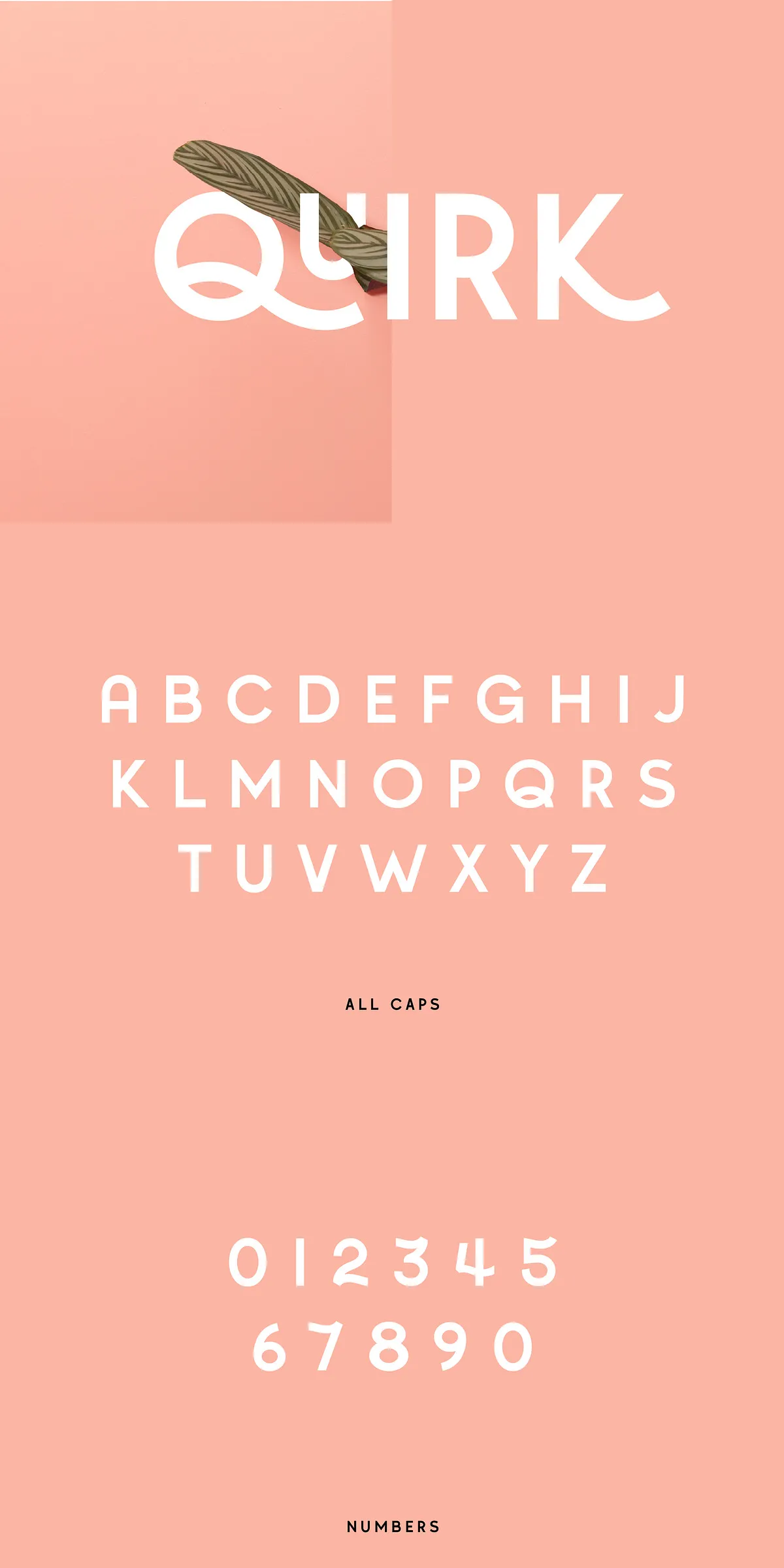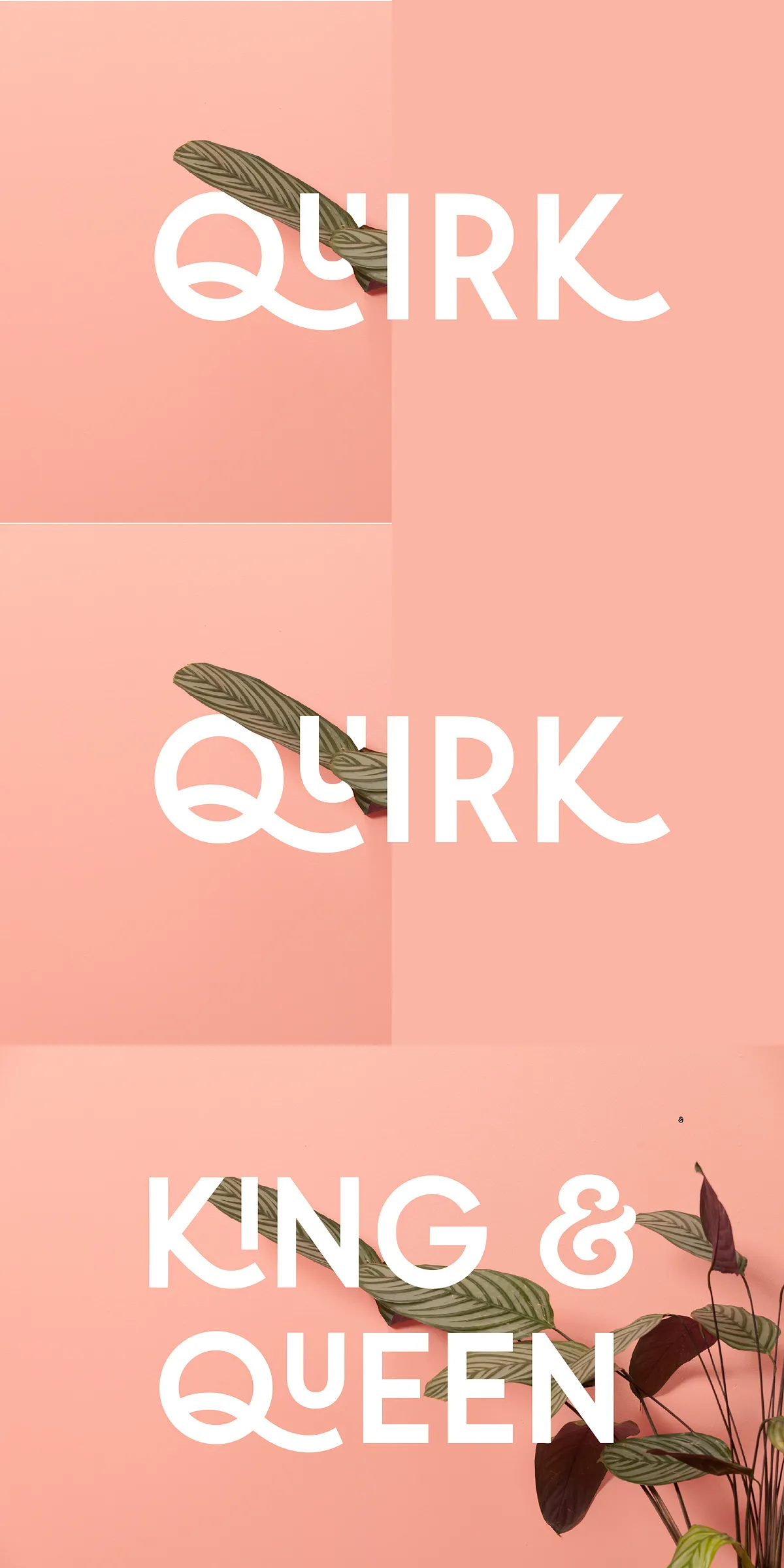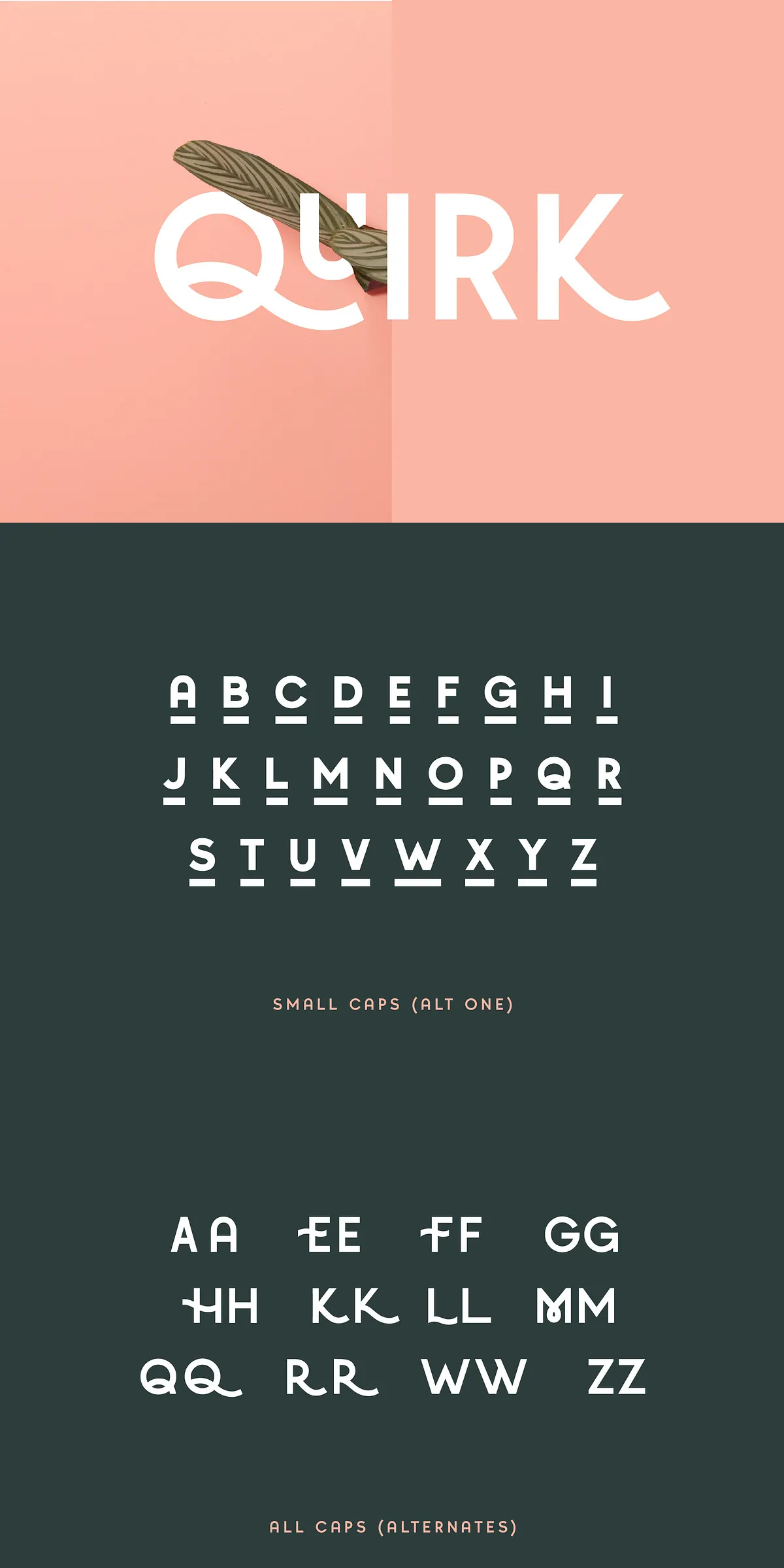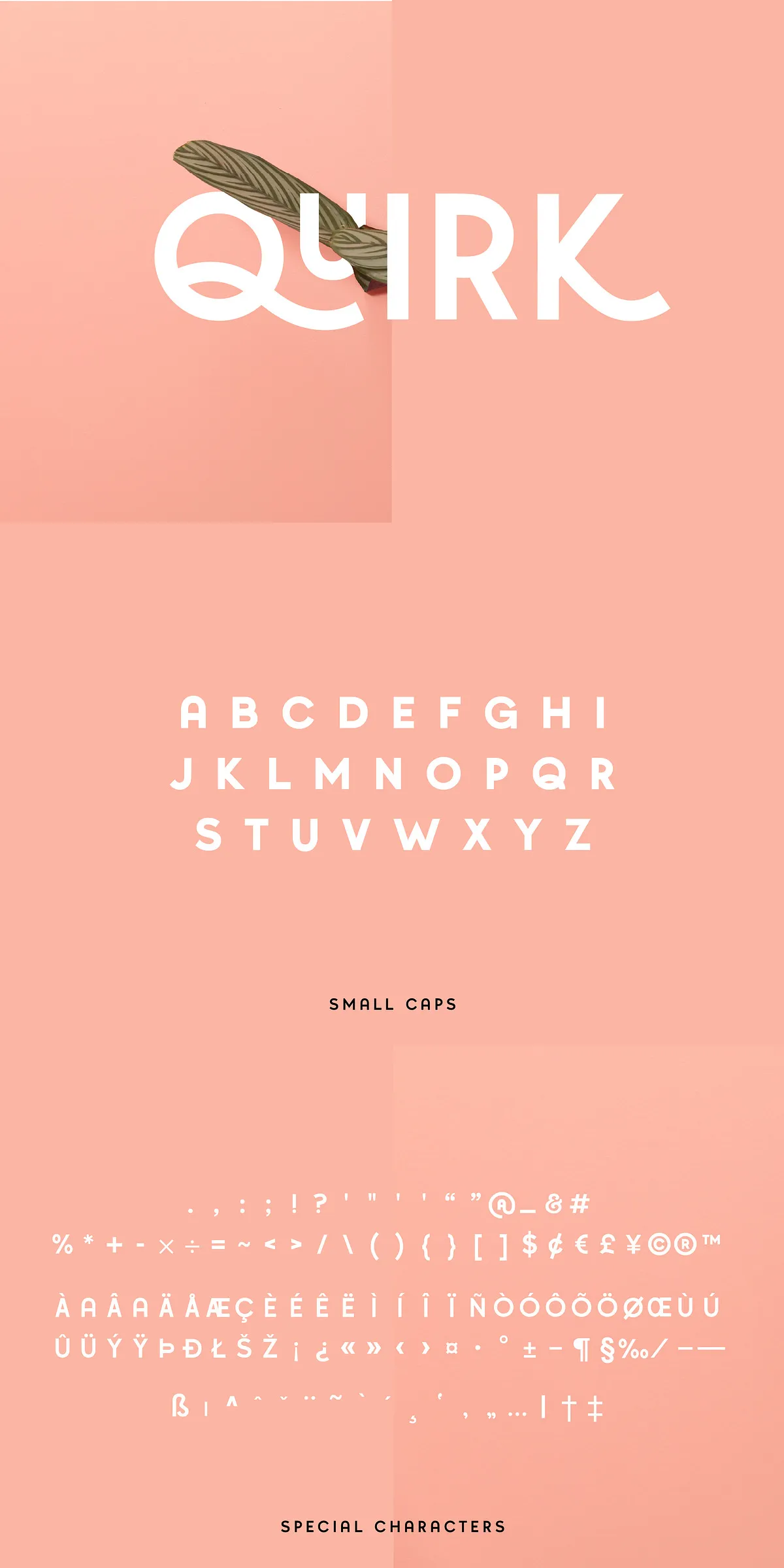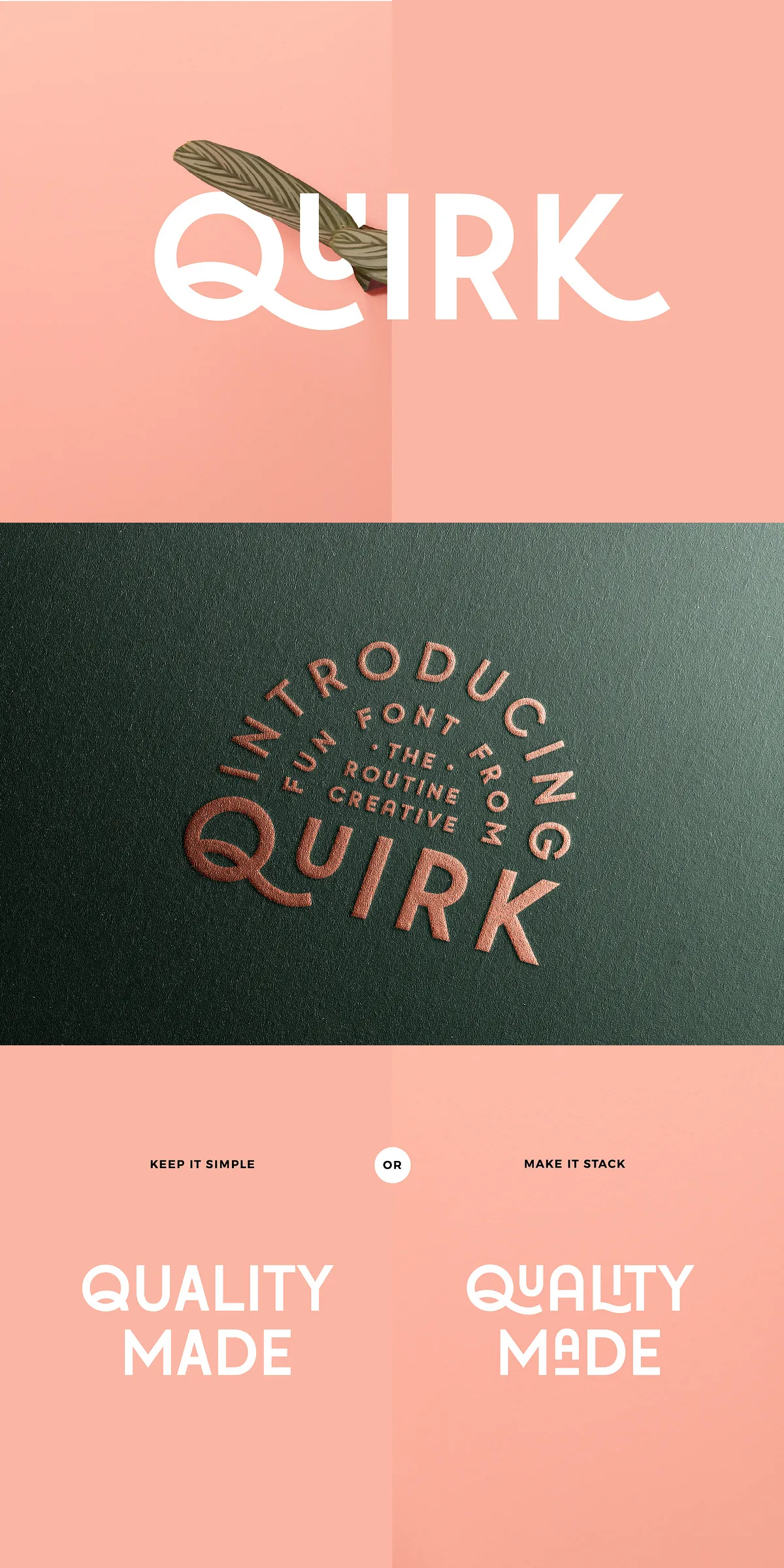
Unlock a new dimension of typographic fun with QUIRK, a vibrant, character-driven display font designed to break the rules—and delight you in the process. This isn’t just a typeface; it’s a toolbox for experimental design. With its entirely capitalized character set and playful stacking logic, QUIRK empowers designers to build dynamic, layered layouts where every letter becomes a visual component in a living, breathing composition.
Stack, Mix, and Surprise: Design That Defies Convention
At the heart of QUIRK lies its revolutionary stackable design system. Each letterform isn’t just static—it’s modular. Combine uppercase glyphs, alternate characters, and unique connectors to create custom typographic sculptures that stand out on web banners, album covers, product packaging, and social media visuals. Whether you’re assembling a brand name piece by piece or crafting a dramatic headline, QUIRK turns typing into a creative act.
- All Caps Alternate Characters: Choose from multiple visual interpretations of each letter to create unique variations and prevent repetition.
- Small Caps Alternate Characters: Add subtle contrast and hierarchy without breaking the all-caps theme—ideal for subheadings, tags, and dynamic layouts.
- Expanded Character Set: Includes numbers, punctuation, currency symbols, and special characters, all crafted to match the font’s playful spirit.
Every glyph is engineered for creative reuse, ensuring that your designs never feel repetitive or flat.
Perfect Pairings: Amplify Your Brand Voice
QUIRK thrives when it’s not alone. Its bold, assertive presence pairs effortlessly with strong, minimal sans-serif fonts to create striking visual contrast. Use QUIRK for headlines, logo accents, or title treatments, and let a clean, modern sans serif handle body copy or supporting text. This duo creates a dynamic rhythm—playful energy meets functional clarity—perfect for fashion brands, music labels, tech startups, and lifestyle products.
Use Cases That Fuel Your Creative Fire
- Branding & Logos: Build unforgettable brand marks with customizable, stacked letterforms.
- Event & Festival Design: Convey fun, energy, and anticipation with a font that matches the mood.
- Merchandise & Packaging: Stand out on shelves with eye-catching text that feels hand-crafted and intentional.
- Web & App UI: Use QUIRK for buttons, banners, and interactive elements where playfulness meets readability.
- Social Media & Graphics: Create bold, shareable content that captures attention instantly.
Own Your Visual Identity — One Stacked Letter at a Time
QUIRK isn’t just about look; it’s about attitude. It challenges designers to think beyond standard typography. It invites experimentation. It rewards imagination.
Stop using generic fonts that blend in. Start using a typeface that makes people stop, lean in, and say, “Wait—that’s clever.” With QUIRK, every project becomes an opportunity to surprise, inspire, and connect.